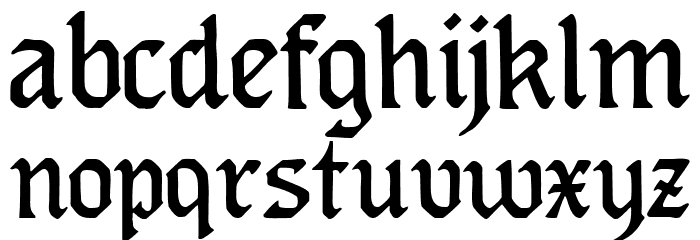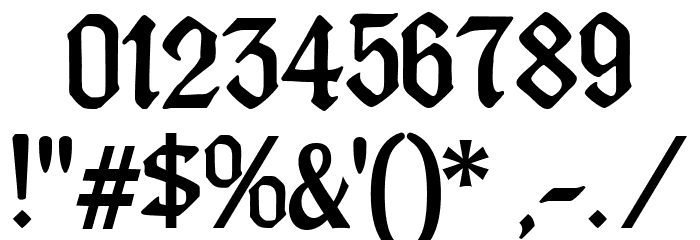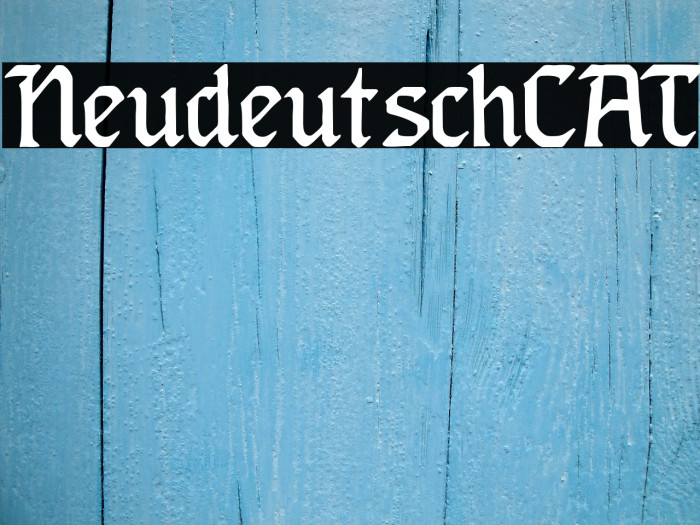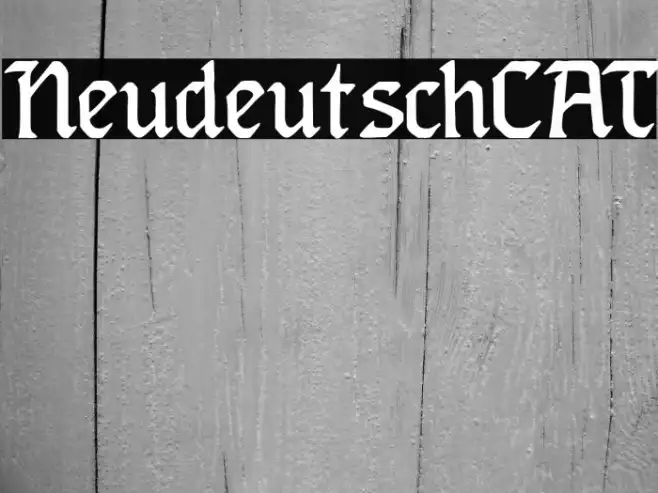
NeudeutschCAT Font
This font embodies a traditional and historical aesthetic, reminiscent of medieval script styles. The characters are bold and angular, featuring sharp serifs and a distinct blackletter influence. The uppercase letters are particularly striking with their strong vertical lines and intricate detailing. Lowercase letters maintain the same angularity, offering a cohesive look across the typeface. Numbers and special characters are designed to match the overall style, ensuring consistency. The font's unique appearance makes it suitable for projects that require a touch of antiquity or a gothic feel.
A bold, angular font with a blackletter style, ideal for historical or gothic-themed projects.
- Proposed Projects: This font is perfect for creating eye-catching headlines, book covers for historical novels, posters for medieval-themed events, or branding for products that want to convey a sense of tradition and heritage.
- Category: Blackletter
- Overall Style: Vintage
- Use Case: Headlines, Logos, Decorative text